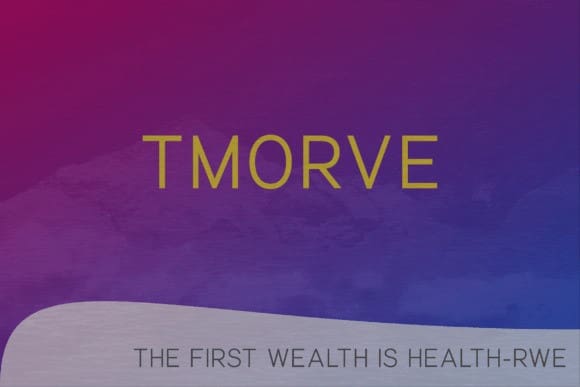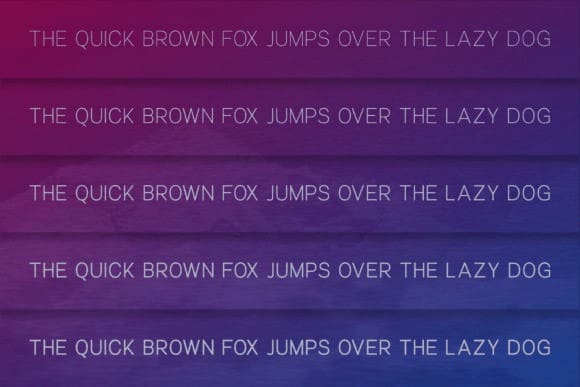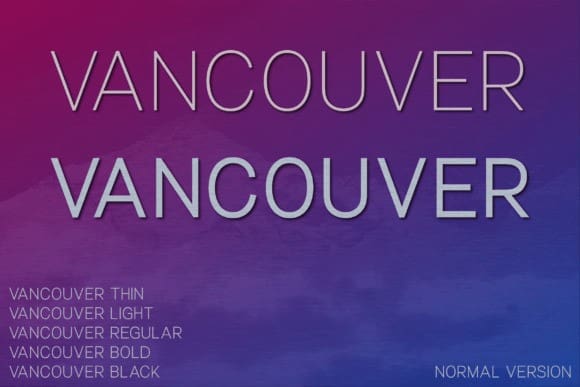
Vancouver Font Family
Vancouver Font Family – a splendid fusion of minimalism and luxury. This sans serif font family is rooted in modernity and meticulously designed with five unique weights, bringing versatility and sophistication to your creative endeavours. These fonts add a distinct presence to any project, be it a fashionable magazine, stylish logo or a compelling film poster. Experience a tasteful balance of grace and simplicity that imbues your designs with an enduring allure. Why not uncover the potential of the Vancouver Font today and watch it shape your projects with grandeur and panache?